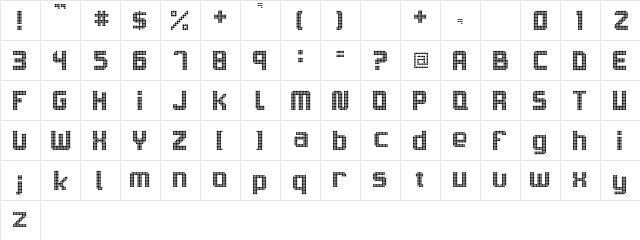
Sam's Town Regular
Design Context for Sam's Town Typeface
Sam's Town takes a measured approach to typography — its balanced proportions and neutral character make it a reliable workhorse for both digital and print work.